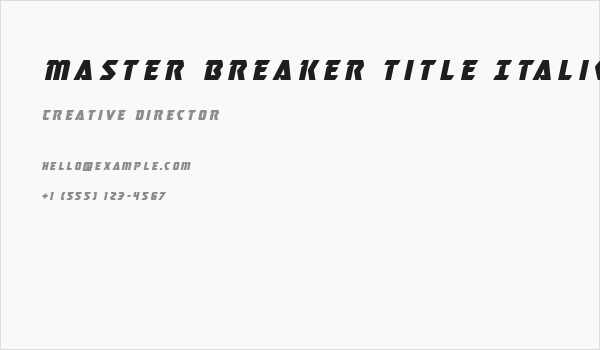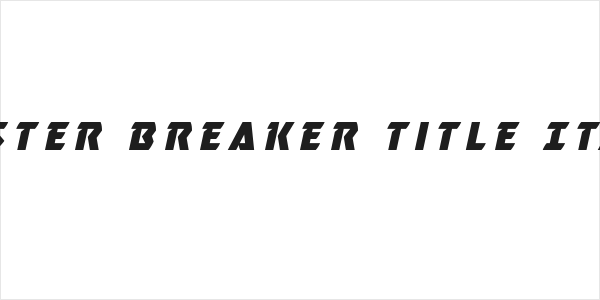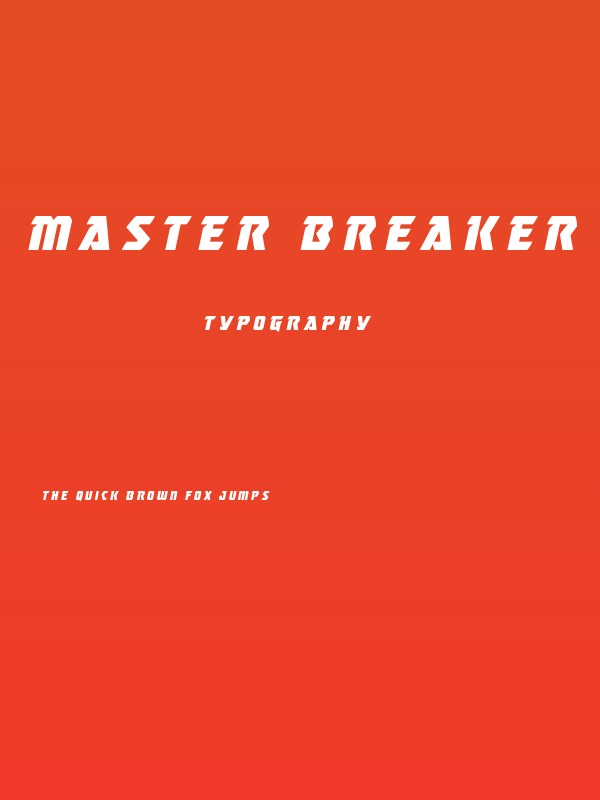
Master Breaker Title Italic Font
Master Breaker Title Italic Description
This font features a bold and dynamic style with a distinct italic slant, giving it a sense of motion and energy. The characters are angular and geometric, with sharp edges and a strong presence. The uppercase and lowercase letters maintain a consistent style, with the uppercase being slightly more pronounced. The numerals are equally bold, ensuring visibility and impact. Special characters are designed to match the overall aesthetic, making this font suitable for attention-grabbing designs.
| Proposed Projects | Ideal for sports branding, action movie posters, video game titles, and dynamic logo designs. |